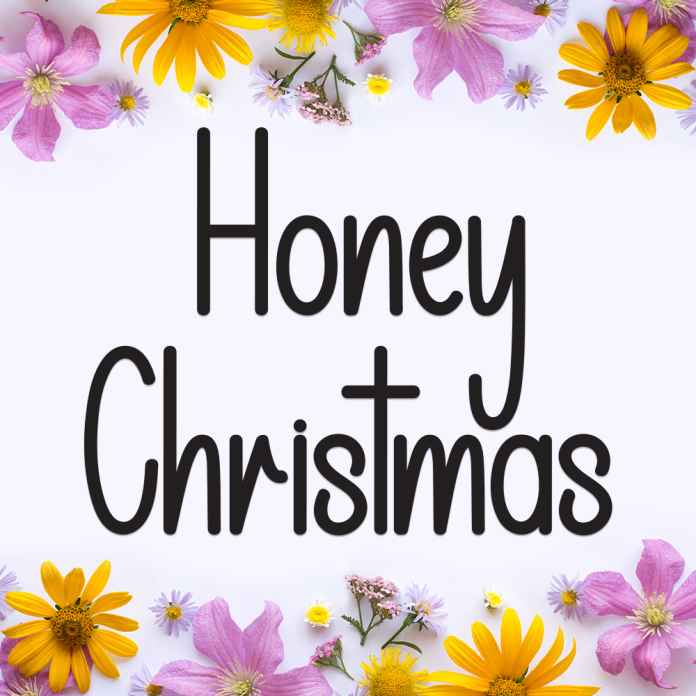
Honey Christmas is a delightful and whimsical display font that blends the cozy warmth of honey with the festive sparkle of Christmas. Its rounded and playful letterforms make it perfect for cheerful holiday-themed designs.
Playful and bold display style with a festive vibe
Perfect for Christmas cards, invitations, and holiday packaging
Unique curves that give a sweet, handcrafted feel
Add a spoonful of sweetness to your holiday projects with Honey Christmas – the perfect font for a warm and joyful festive season.